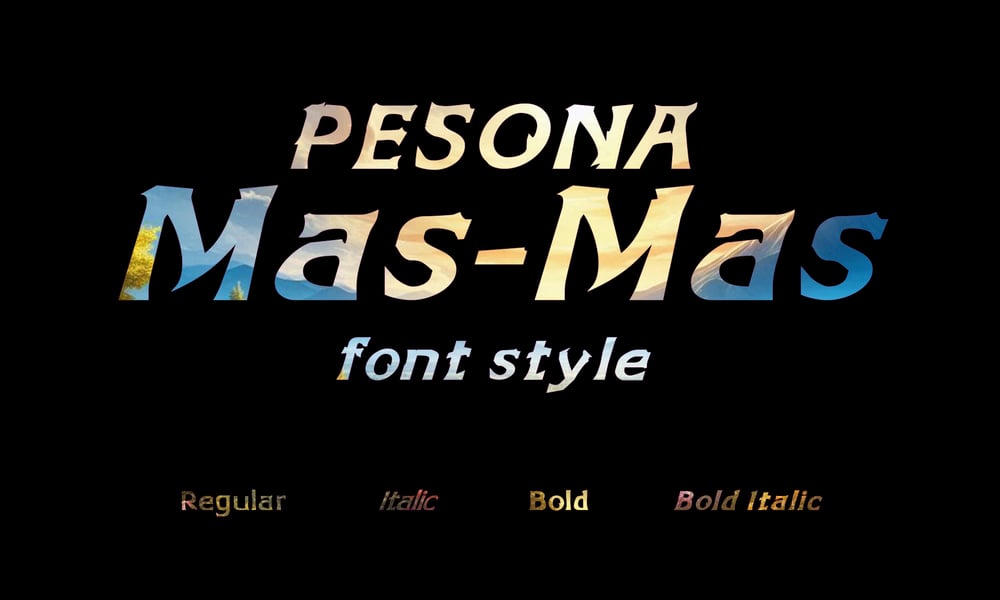
Pesona Mas Mas Font Family was designed by Dwi Asmoro and published by Asmoro Pabrik Huruf. Pesona Mas Mas contains 4 styles and family package options. A typeface inspired by mystical, magical, and colossal themes. Designed to evoke a sense of tension while remaining elegant, it brings a magical and mysterious atmosphere to your designs. Perfect for projects that demand an otherworldly, dramatic, yet sophisticated touch.